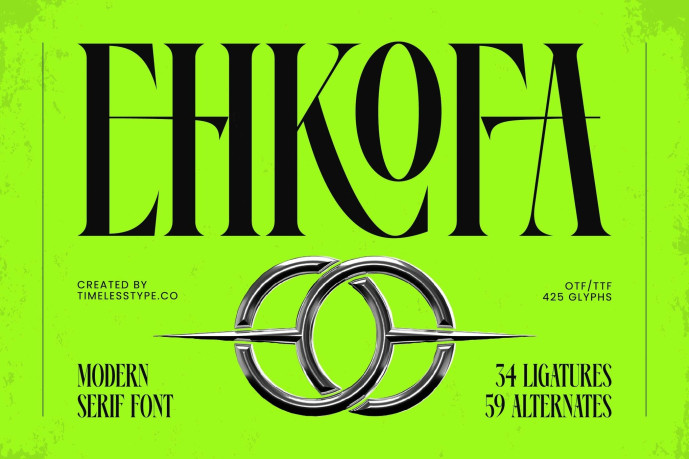
Ehkofa Font
Ehkofa Font is a modern serif font that merges bold editorial elegance with cutting-edge sophistication. Featuring 34 ligatures, 59 alternates, and 425 total glyphs, this typeface offers a sleek balance between classic proportions and futuristic styling — perfect for branding, luxury logos, magazine covers, and high-end packaging.
Its tall, confident letterforms and sharp contrast strokes make Ehkofa a statement font for designers who seek power and refinement in their work. Whether used for minimalist layouts or bold visual identities, Ehkofa delivers style, precision, and modern luxury.